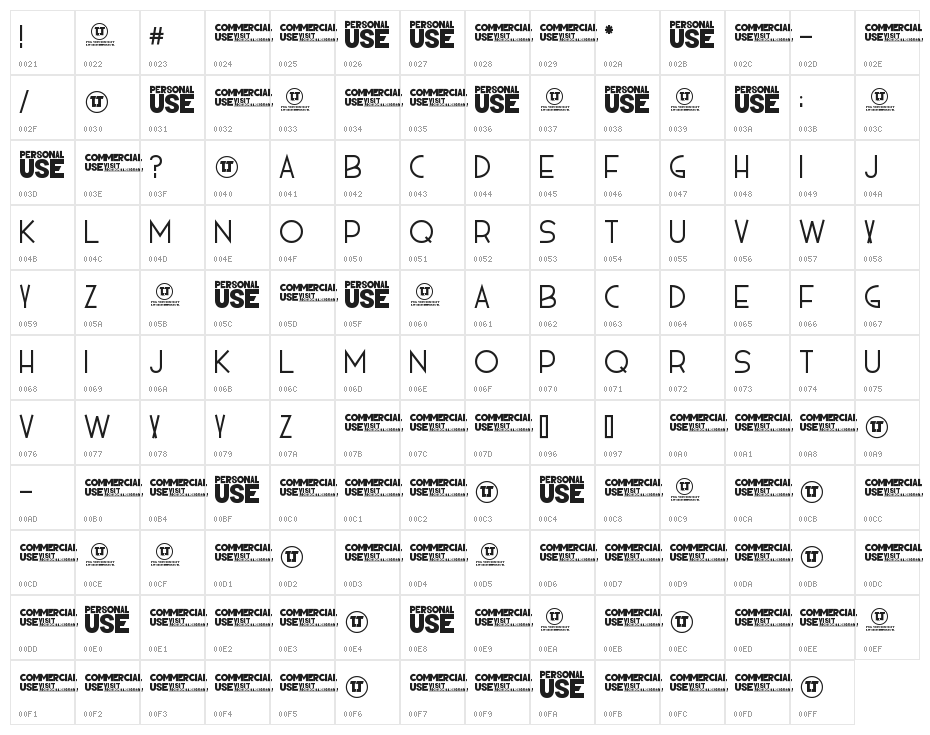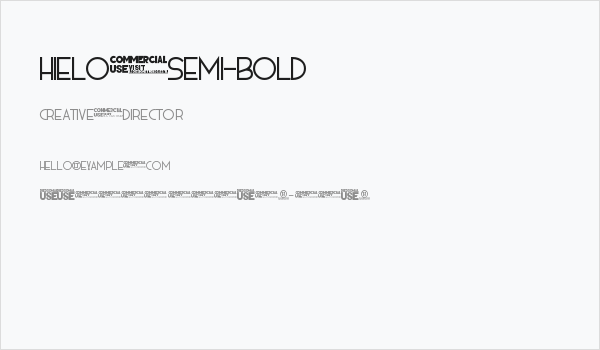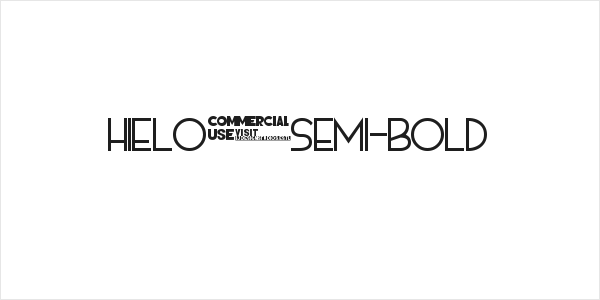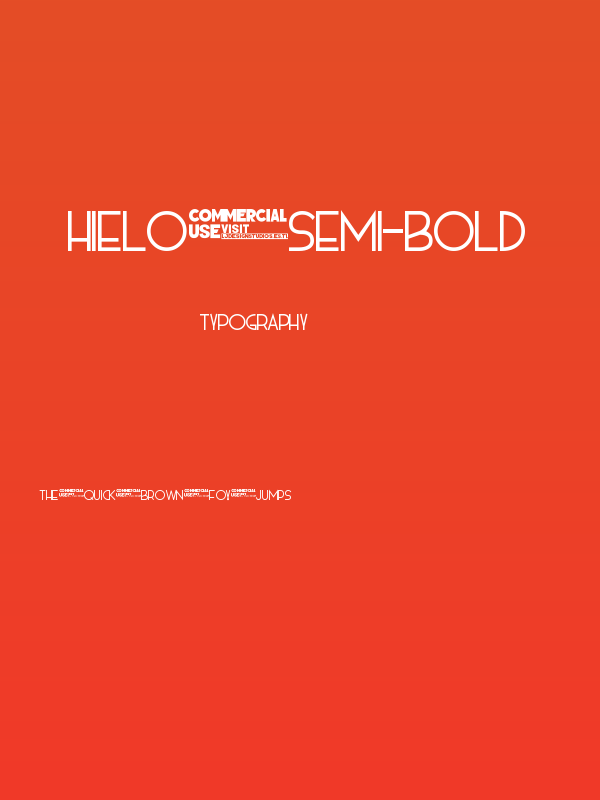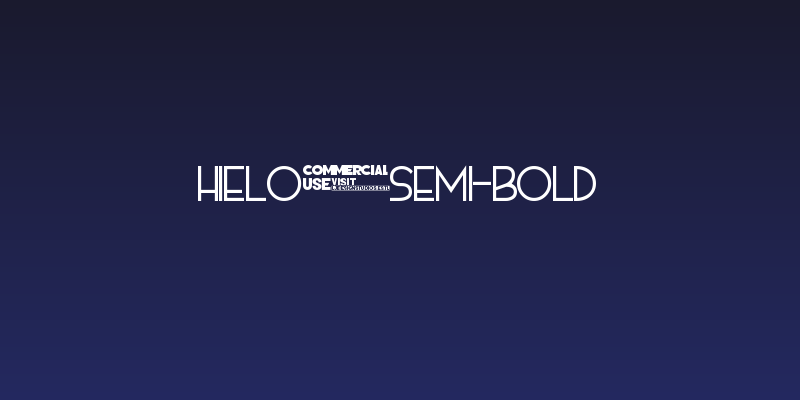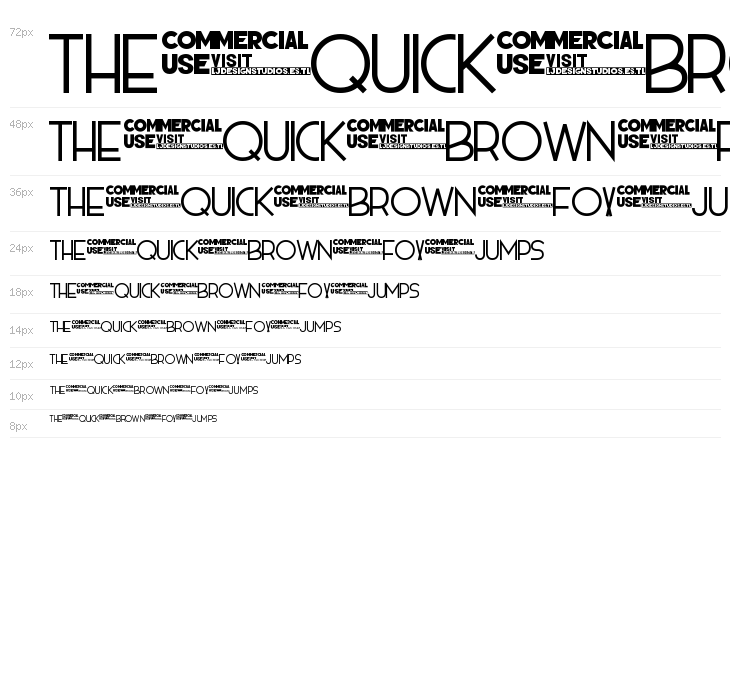
HIELO Semi-bold Font
HIELO Semi-bold Description
This font exhibits a modern and geometric style with clean, sharp lines and a semi-bold weight. The characters are constructed with a consistent stroke width, providing a uniform appearance. The uppercase letters are particularly striking, with a tall and narrow form that enhances readability. The font's design is minimalistic, making it suitable for contemporary projects. The spacing between characters is normal, ensuring clarity and legibility. This font's simplicity and elegance make it versatile for various design applications.
| Use Case | Headlines, Branding, Posters |
| Proposed Projects | Ideal for branding, headlines, posters, and digital media where a modern and clean aesthetic is desired. |